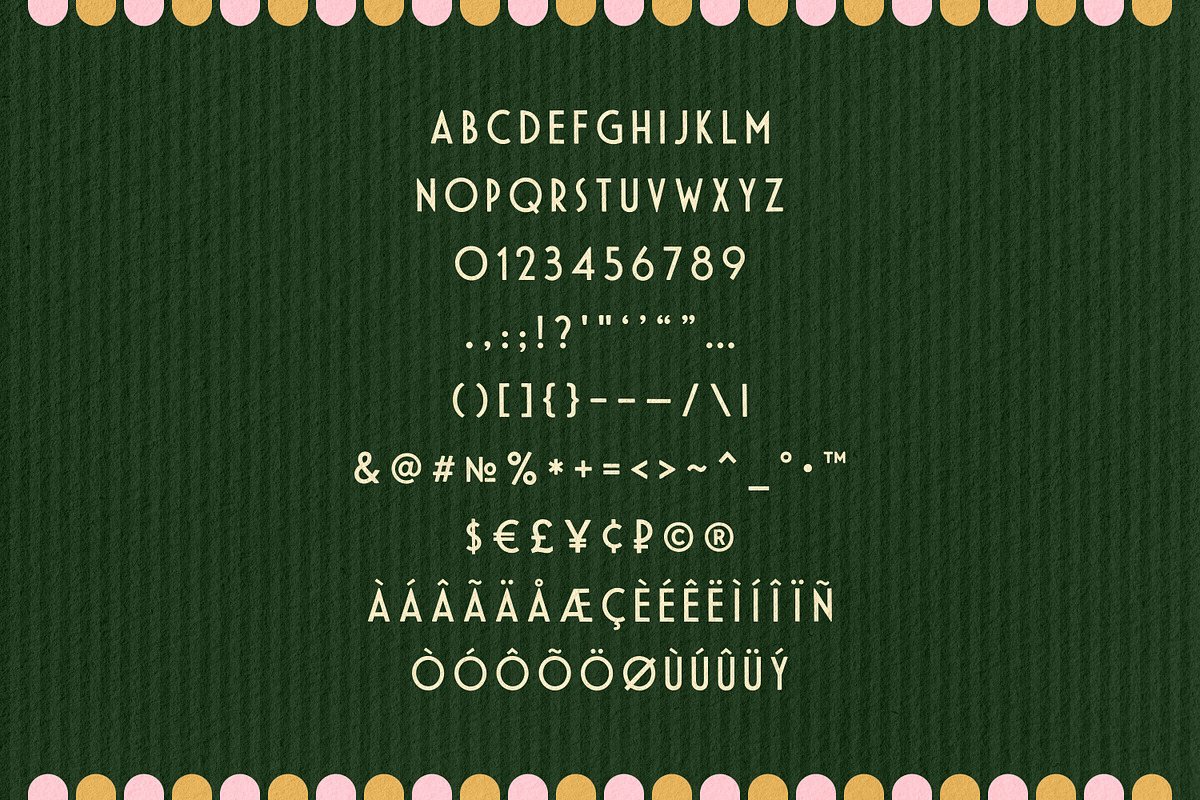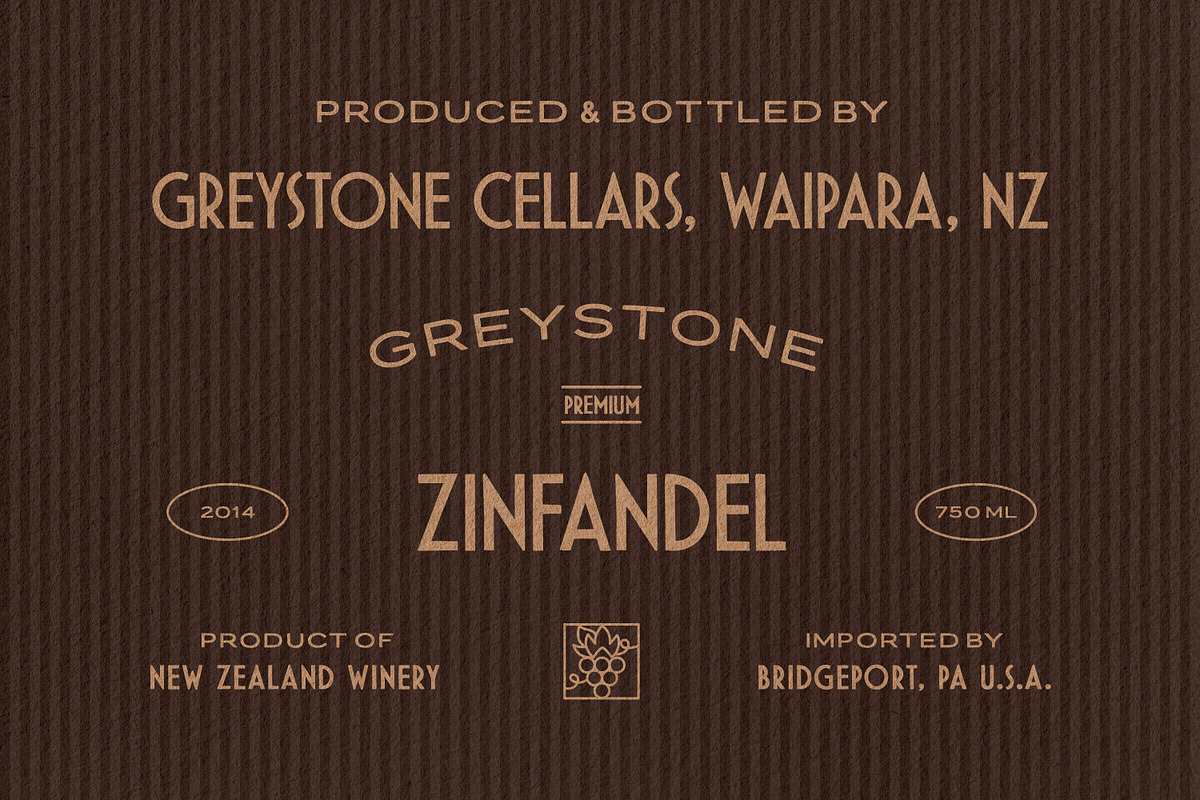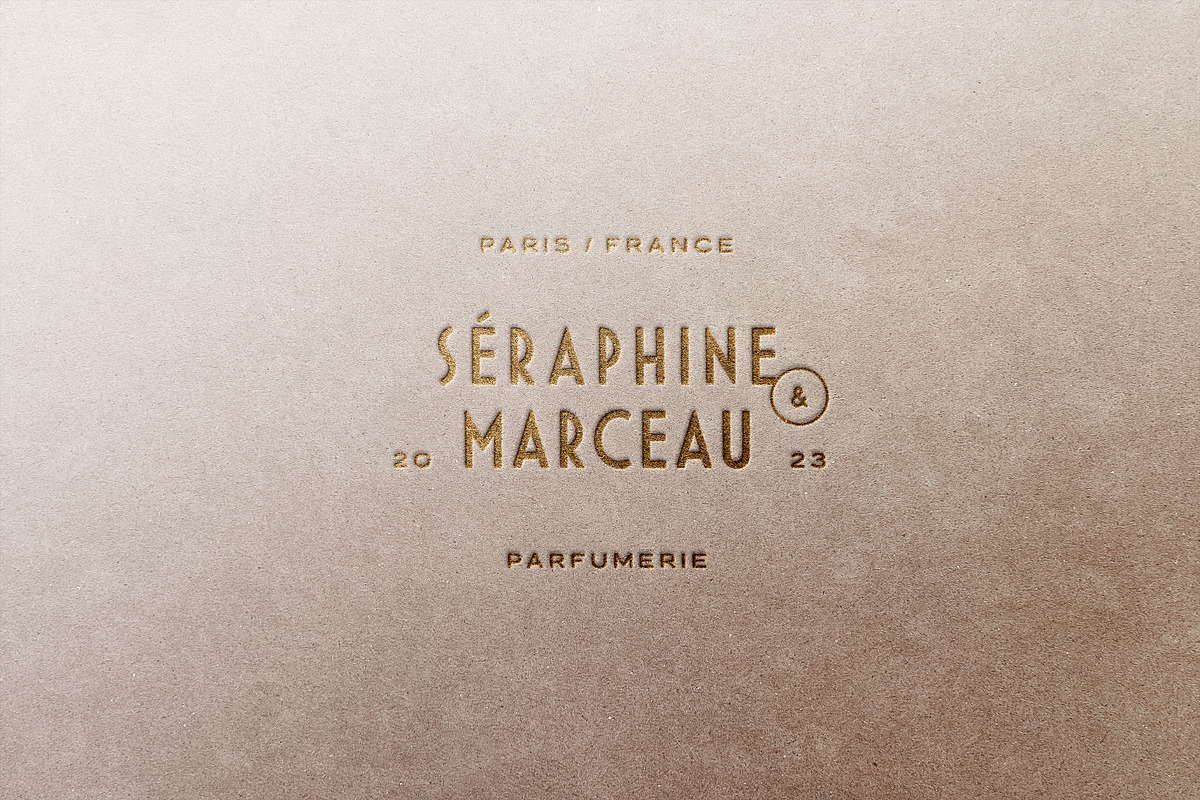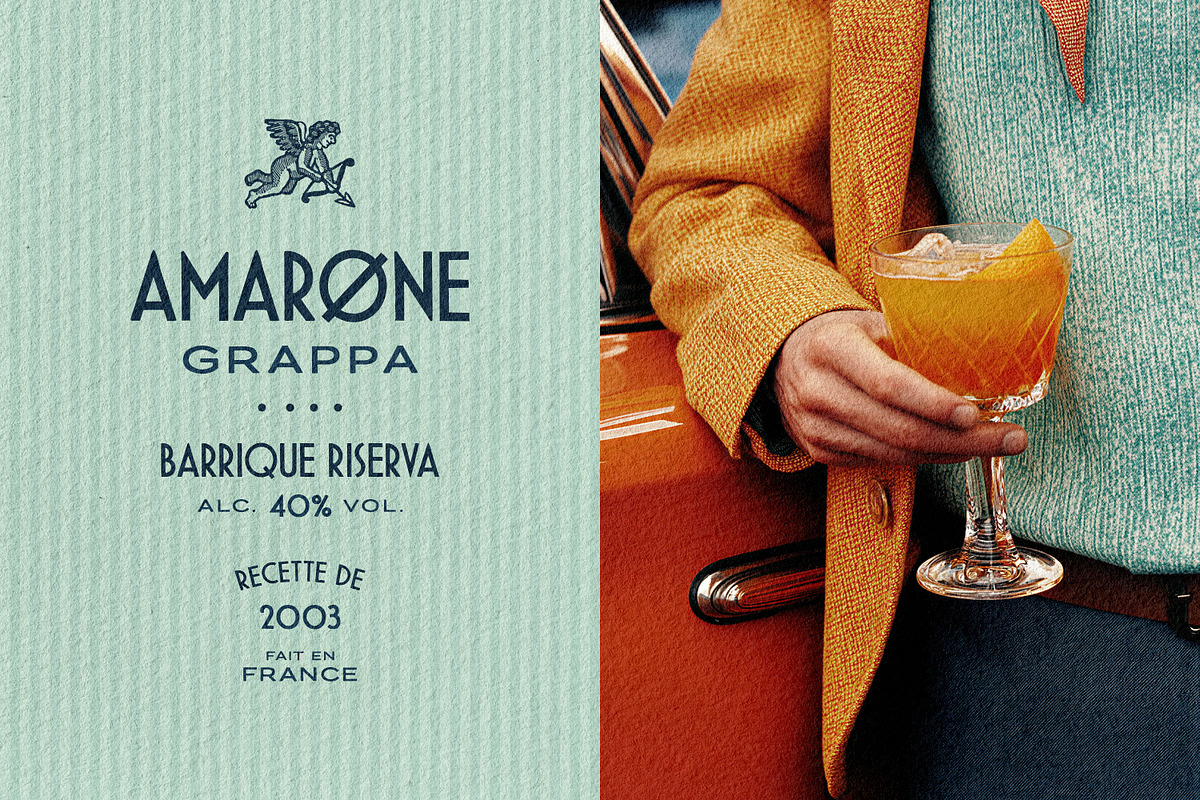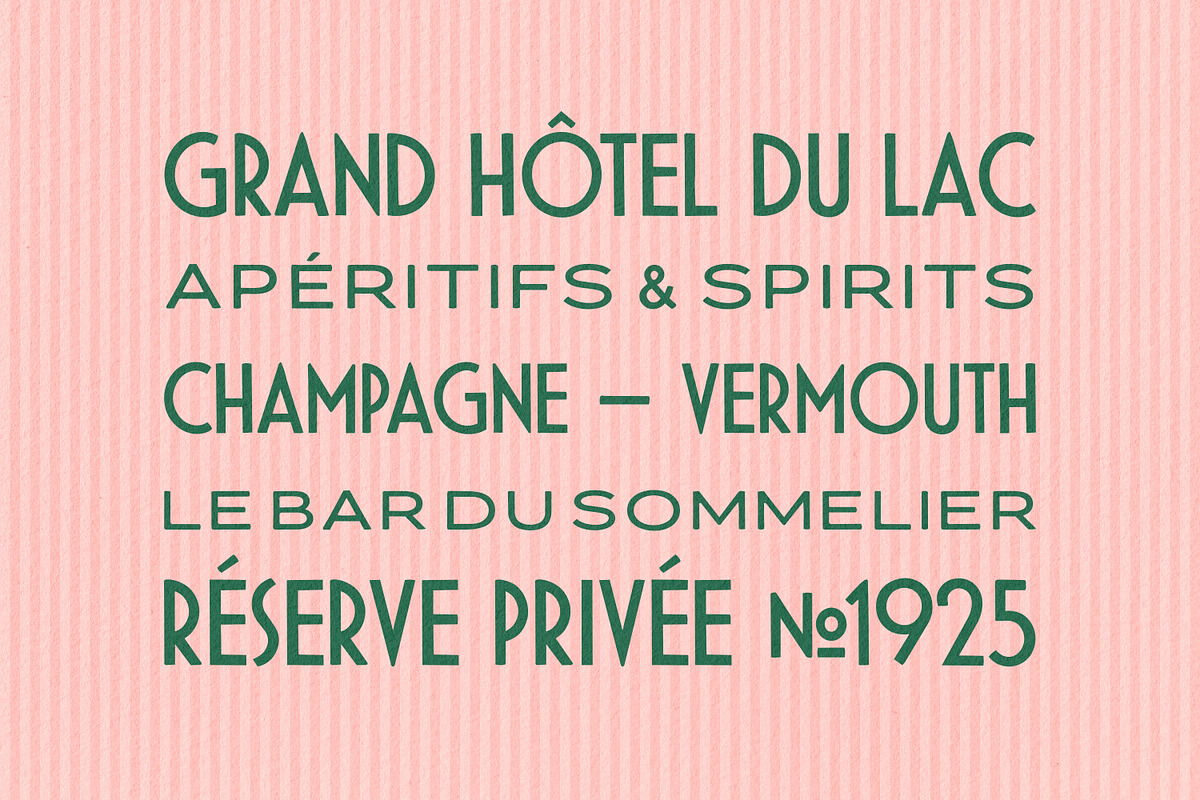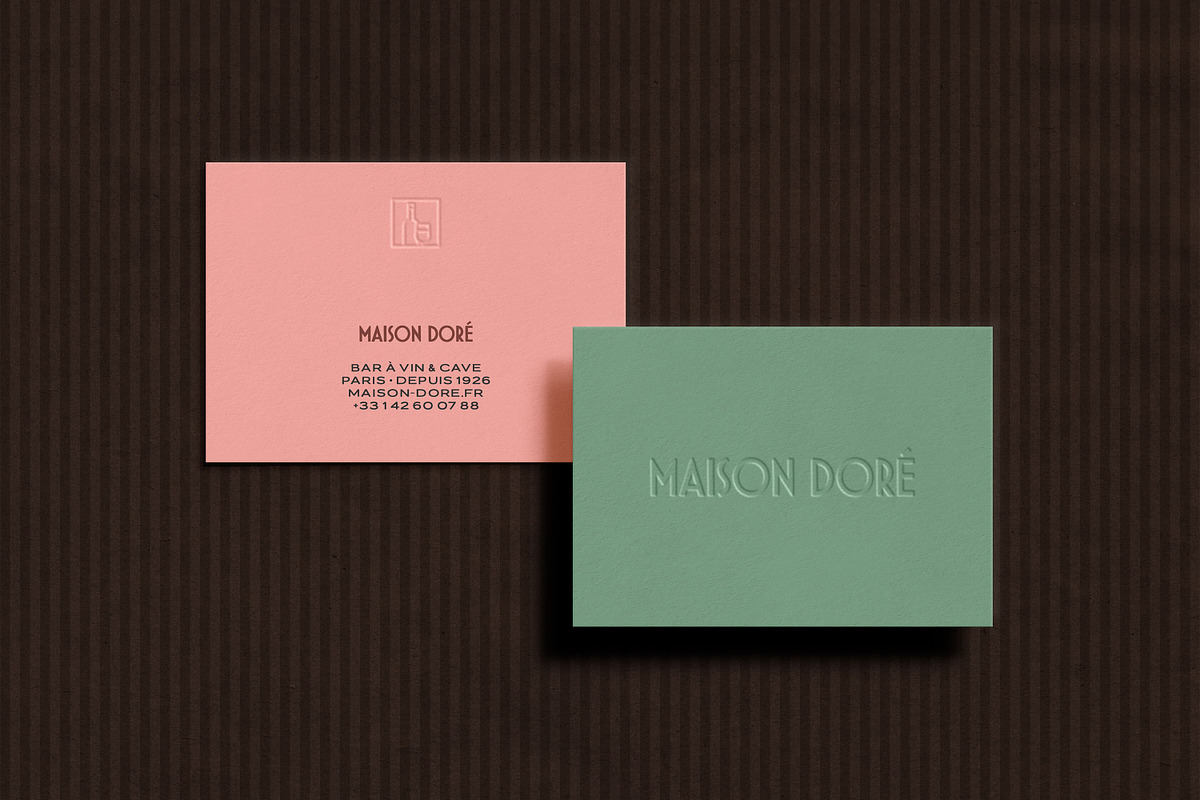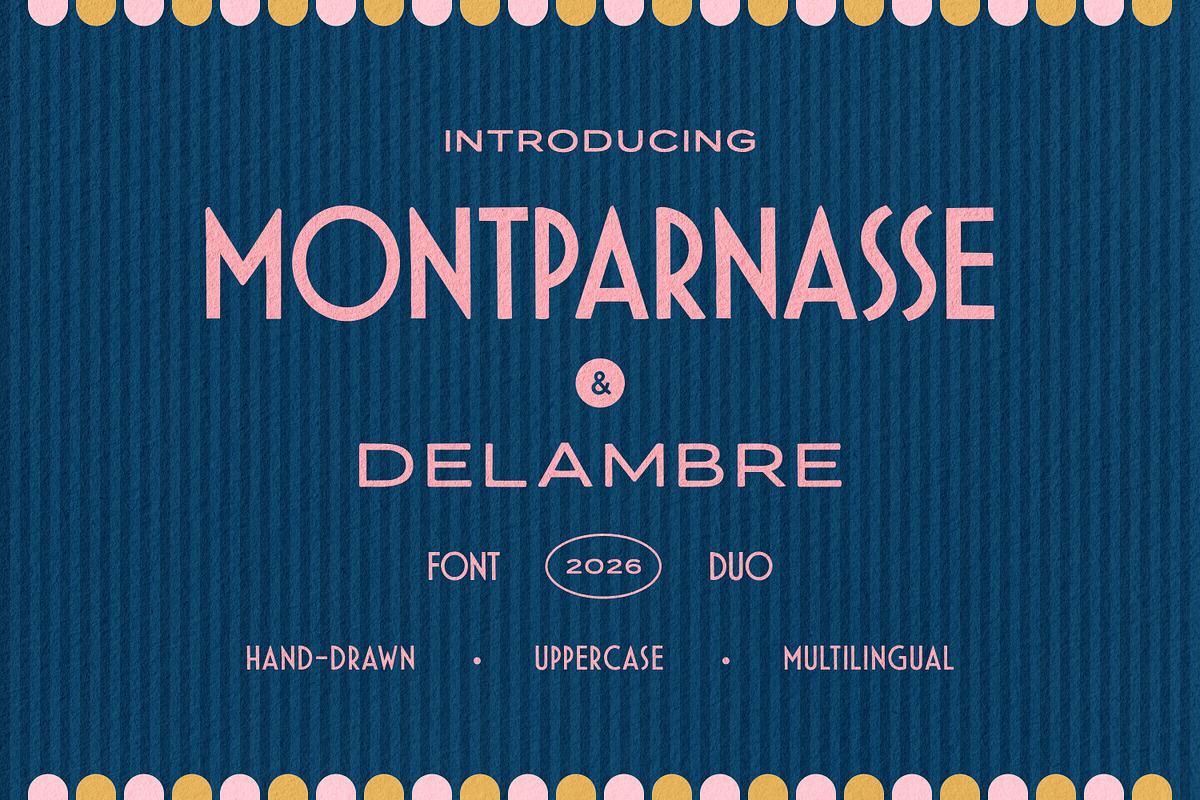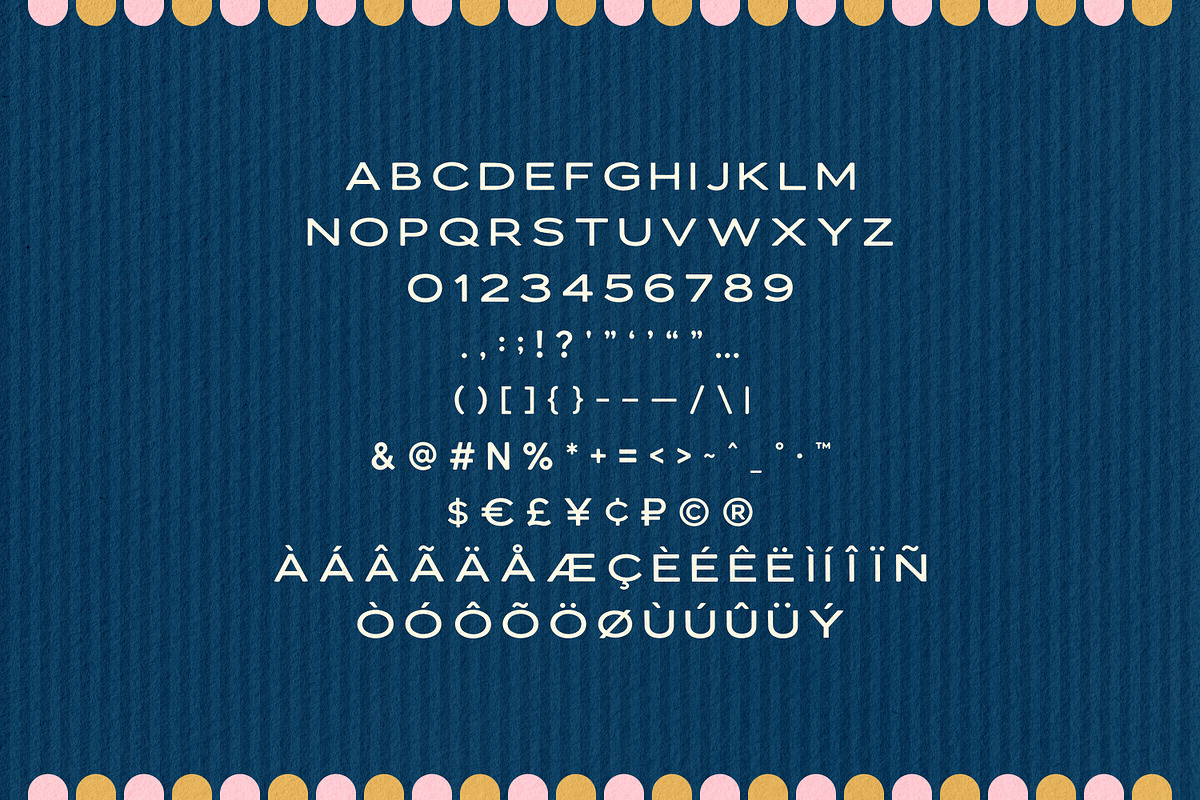
Montparnasse & Delambre Sans Duo
Montparnasse & Delambre are an Art Deco display duo drawn from the geometry that swept Paris around the 1925 Exposition des Arts Décoratifs. The lettering of the age ran on bold geometric forms, so both fonts share the DNA. They bring high-waisted capitals, perfectly round bowls, pointed apexes, and a hand-drawn finish that softens the edges just short of a mechanical vector cut.
Even the name is an Art Deco easter egg: it evokes the jazz-age Left Bank, the Montparnasse of 1920s café society, where that geometry first found its way into signage and labels.
Montparnasse is the condensed cut, narrow and vertical, built to stack headlines into tall columns or run a long name down the length of a poster. Delambre opens the same skeleton out wide, with room to breathe across a logotype or a label face. Together, they do the real work of a deco lockup: a wide brand name over condensed supporting lines, a year, an origin, a measure. That layering builds the hierarchy of a spirit's label, a parfumerie box, or a grand hotel sign.
Practical uses:
Branding and logos — wine and spirits labels, perfumeries, hotels and bars, patisseries, fashion houses.
Packaging design — bottle and tin labels, perfume boxes, chocolate bars, gift wrap.
Poster and signage — event bills, menu boards, façade and window lettering, gallery announcements.
Editorial and print — magazine titles, invitations, certificates, monograms.
Social content — title cards, announcement posts, story templates.
2 styles: Montparnasse (condensed) and Delambre (wide);
uppercase letters;
numerals, punctuation, and currency symbols;
multilingual support across Western European languages;
120 glyphs per style.